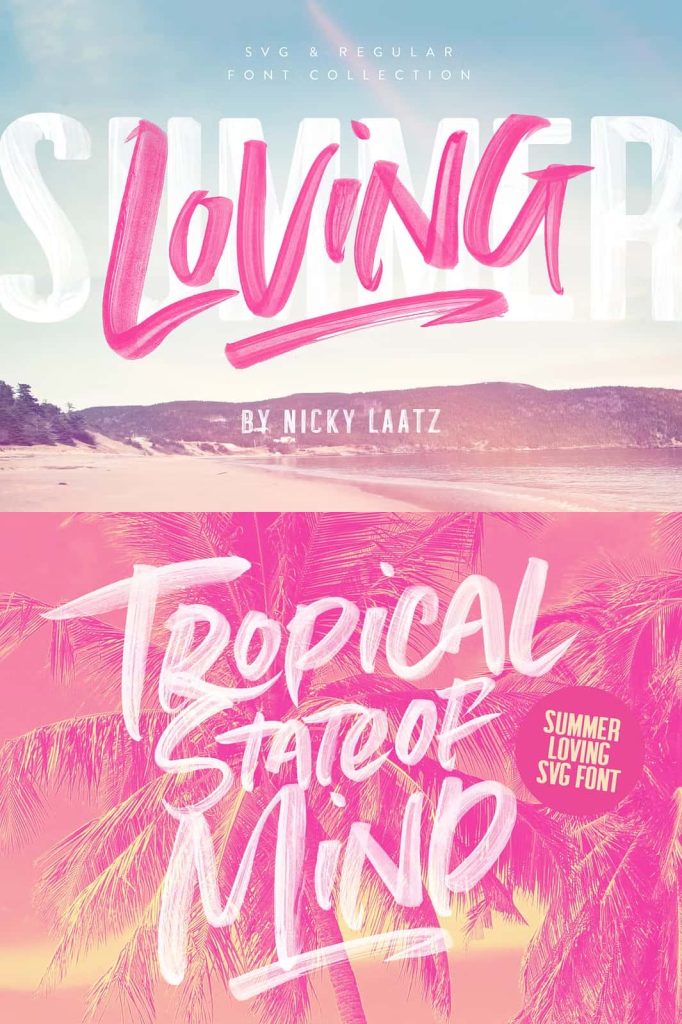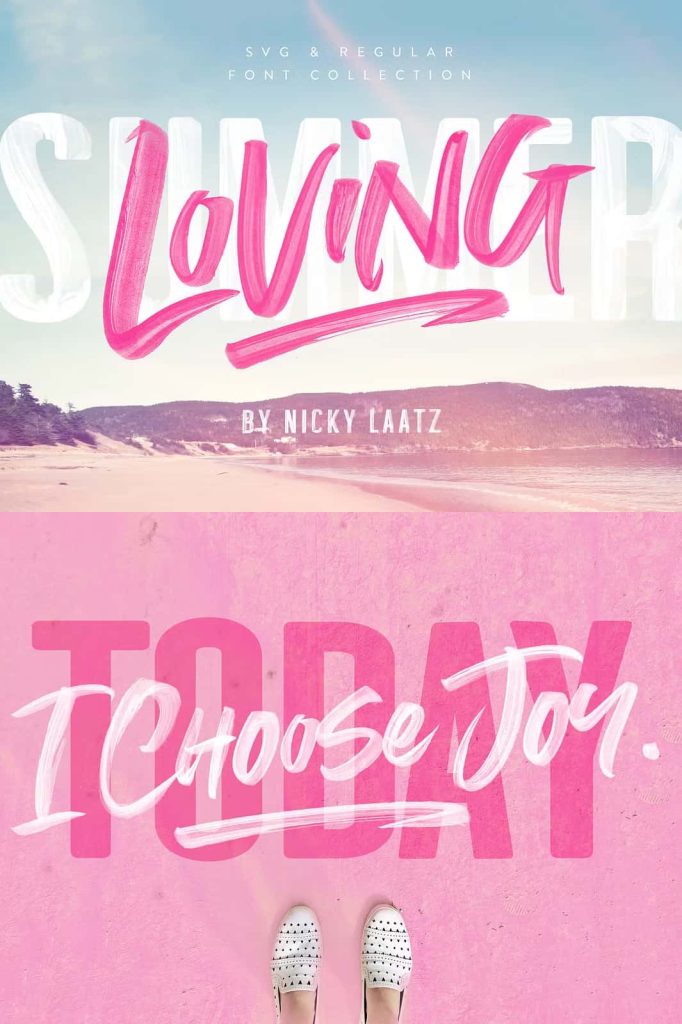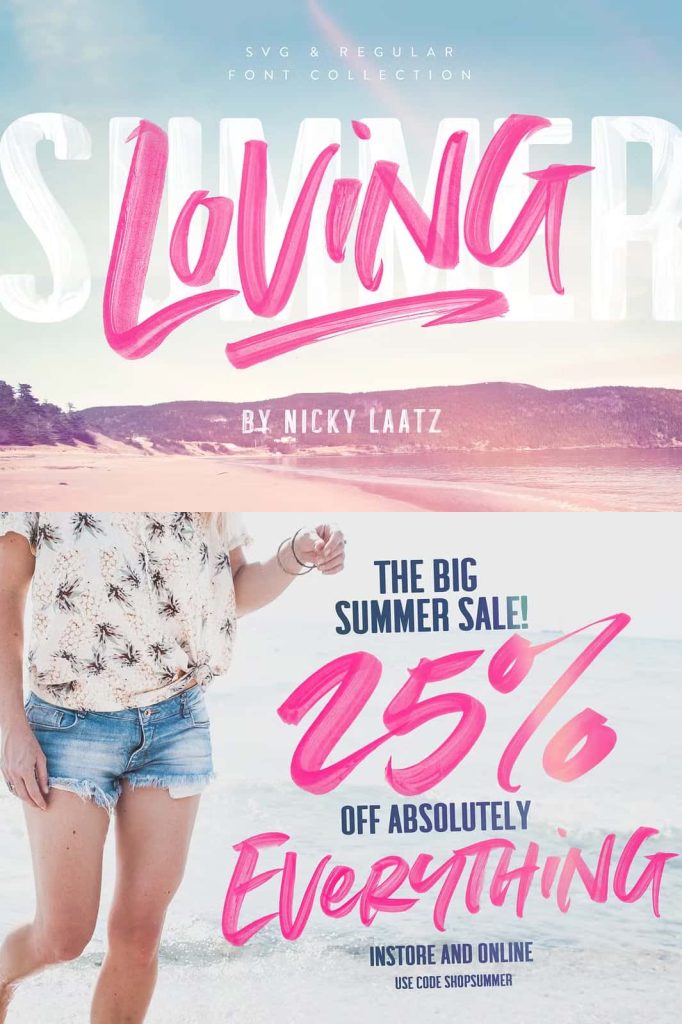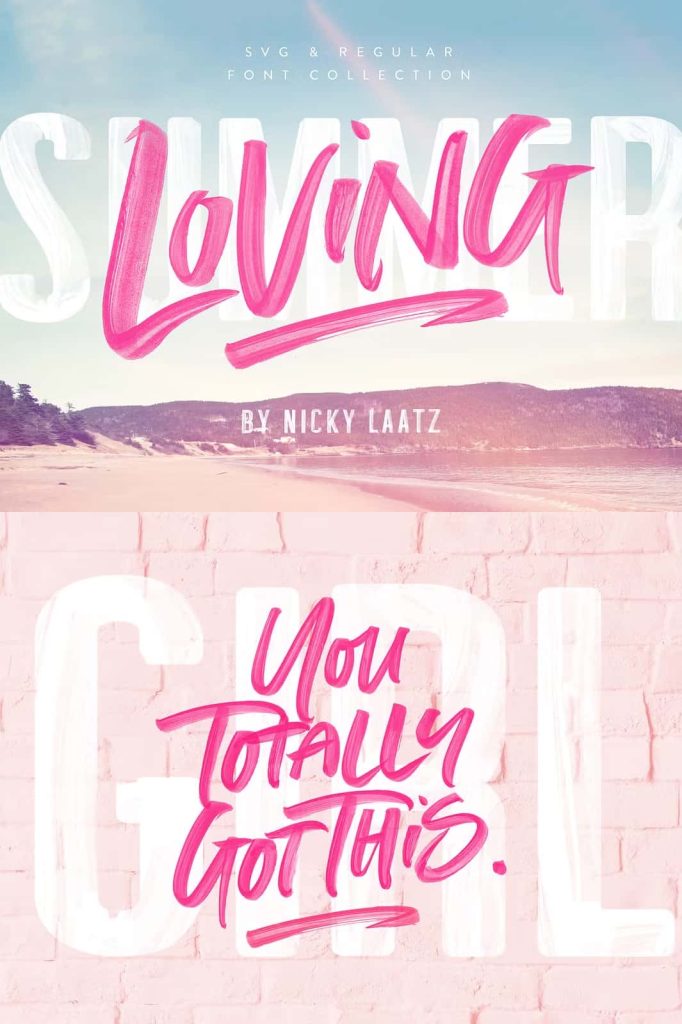
Summer Loving Font Collection: Bold SVG Fonts with Hand-Painted Texture
Summer Loving Font Collection brings vibrant energy and artistic flair directly into your design workflow. Created for designers who want bold, expressive typography without the time-consuming process of hand-painting letters, this collection delivers high-impact results instantly. With ultra-textured SVG fonts and built-in paintbrush detail, you can create eye-catching visuals that feel authentic, dynamic, and full of personality.
This collection invites you to embrace a carefree, summer-inspired aesthetic while maintaining professional quality. Whether you are working on branding, social media graphics, or merchandise, Summer Loving helps you produce designs that stand out with minimal effort.
High-Resolution Paintbrush Detail Built In
Summer Loving Font Collection features SVG fonts designed with rich, high-resolution textures. Each letter carries the depth and variation of real paintbrush strokes, giving your typography a handcrafted appearance that feels both natural and visually striking.
Unlike standard vector fonts, these SVG fonts preserve intricate details such as brush edges, paint density, and subtle imperfections. This creates a realistic hand-painted effect that adds depth and character to your designs.
Skip the Manual Work, Keep the Authentic Look
Traditionally, achieving a hand-painted style requires hours of sketching, scanning, and refining. Summer Loving eliminates that process entirely. Instead of creating custom lettering from scratch, you can simply type your text and instantly achieve a professional, textured result.
This efficiency allows you to focus more on creativity and composition rather than technical execution. You gain the freedom to experiment and iterate quickly without sacrificing quality.
Designed for Bold and Creative Projects
Summer Loving Font Collection thrives in projects that demand strong visual impact. Its expressive style makes it ideal for designs that need to capture attention and convey energy. You can use it across a wide variety of applications, including:
- Posters and promotional graphics
- Branding and logo design
- Social media content and campaigns
- Apparel and merchandise design
- Packaging and product labels
The bold texture and organic strokes help your text stand out, even in crowded visual environments. This makes it especially effective for marketing and branding projects that rely on strong visual identity.
Create a Vibrant Summer Aesthetic
Summer Loving Font Collection captures the essence of warm, energetic, and carefree design. Its textured brush style evokes the feeling of sunlight, movement, and spontaneity. This makes it perfect for seasonal campaigns, lifestyle brands, and creative projects that celebrate color and expression.
You can pair these fonts with bright color palettes, bold layouts, and dynamic compositions to fully embrace the summer vibe. At the same time, the detailed textures ensure that your designs maintain a high level of sophistication.
Flexible and Easy to Use
Despite its complex appearance, Summer Loving remains easy to use. Simply install the fonts and start typing to see the textured effect come to life. The built-in design ensures consistency across your text while still allowing for creative flexibility.
Use larger sizes to highlight the intricate brush details, or combine it with simpler fonts to create contrast and balance within your design.
Why Choose Summer Loving Font Collection
Summer Loving stands out because it combines artistic detail with practical usability. It gives you the look of hand-painted typography without the time investment typically required. This makes it an essential tool for designers who want to work efficiently while still producing high-quality, expressive visuals.
The collection allows you to push creative boundaries and explore new styles with confidence. Its unique texture and bold presence ensure that your work leaves a lasting impression.
Transform Your Designs Instantly
If you want to create designs that feel energetic, artistic, and full of life, Summer Loving Font Collection provides the perfect solution. Skip the manual process, embrace the built-in texture, and bring your ideas to life with bold, hand-painted typography.
Start using Summer Loving today and turn every project into a vibrant visual statement that captures attention and communicates creativity.